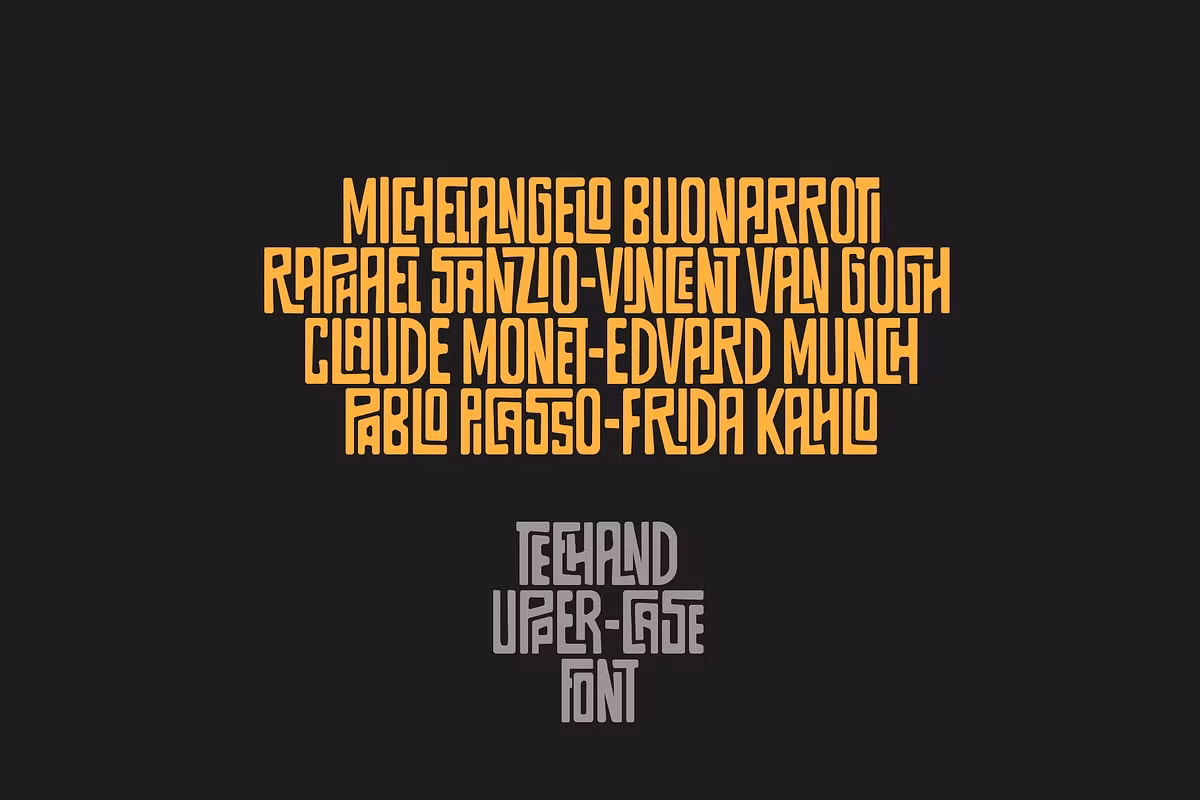
With its natural flow, clean legibility, and warm personality, Teehand is perfect for notebooks, blog graphics, teacher resources, personal branding, planners, and social media posts. It adds a touch of sincerity and simplicity to your designs—ideal for when you want your words to feel human and approachable.